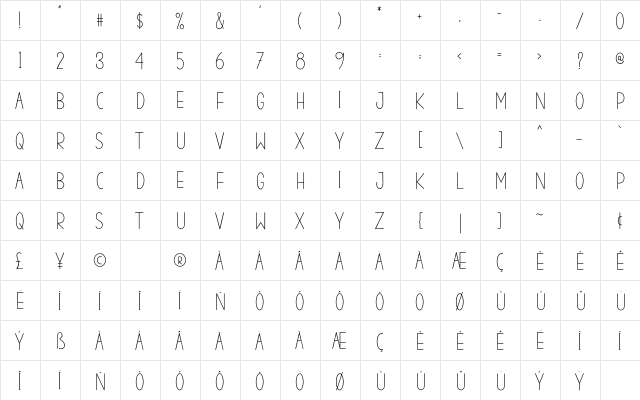
STAY HOME Regular
Design Context for STAY HOME Typeface
STAY HOME offers clean, dependable letterforms without strong stylistic allegiance, making it a practical choice for designers who need flexibility.
Pro Tip: Use STAY HOME in both headline and body roles to test its range before committing to a single application.